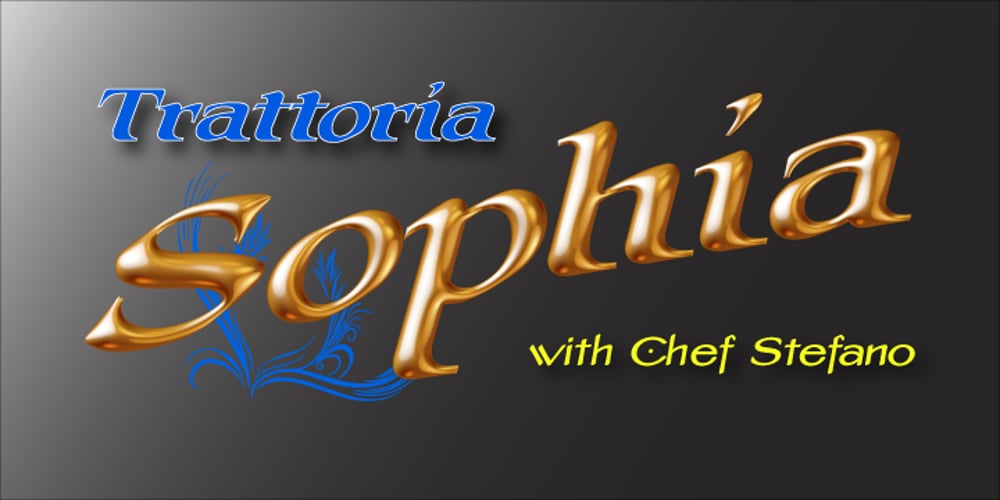
Stefano
Stefano font
Stefano Font Family was designed by published by Signs of Gold. Stefano contains 1 styles and family package options. Stefano is a meld of traditional Roman typeface design and calligraphic hand lettering. It is bold yet refined; elegant yet forceful. Stefano will enhance the urbane and elevate the prosaic.